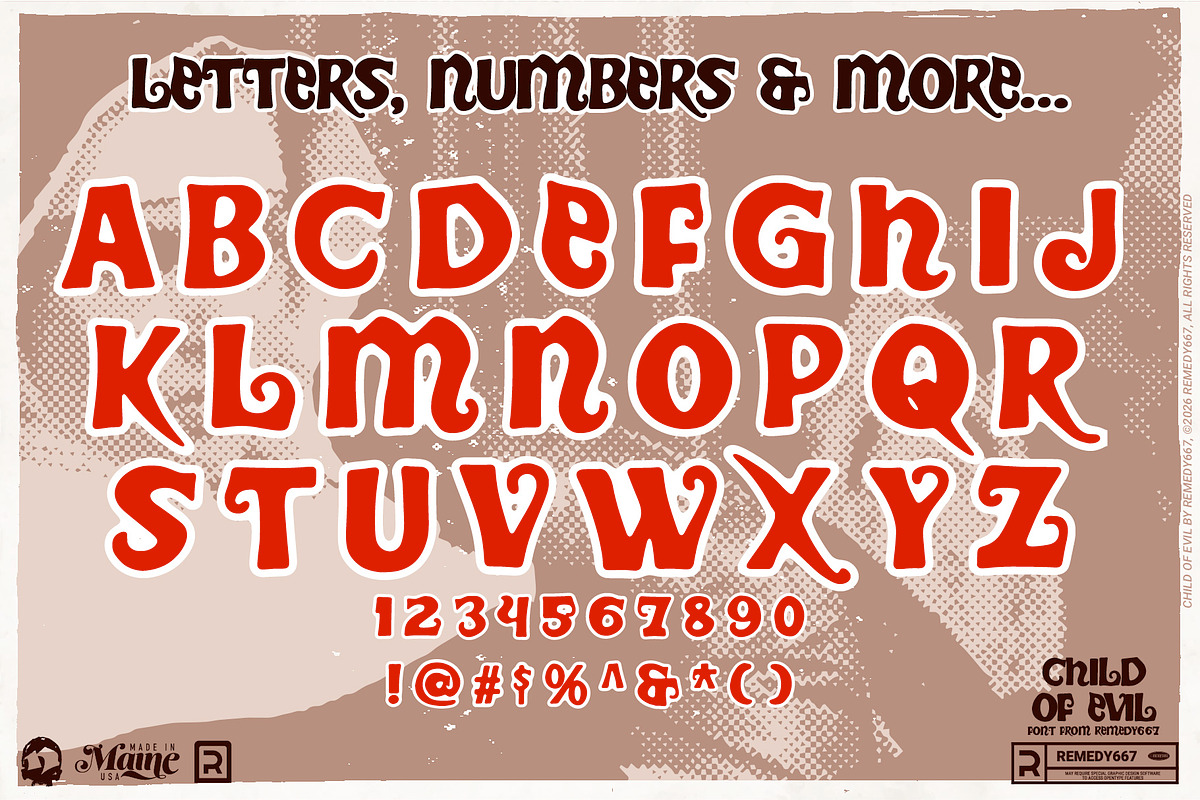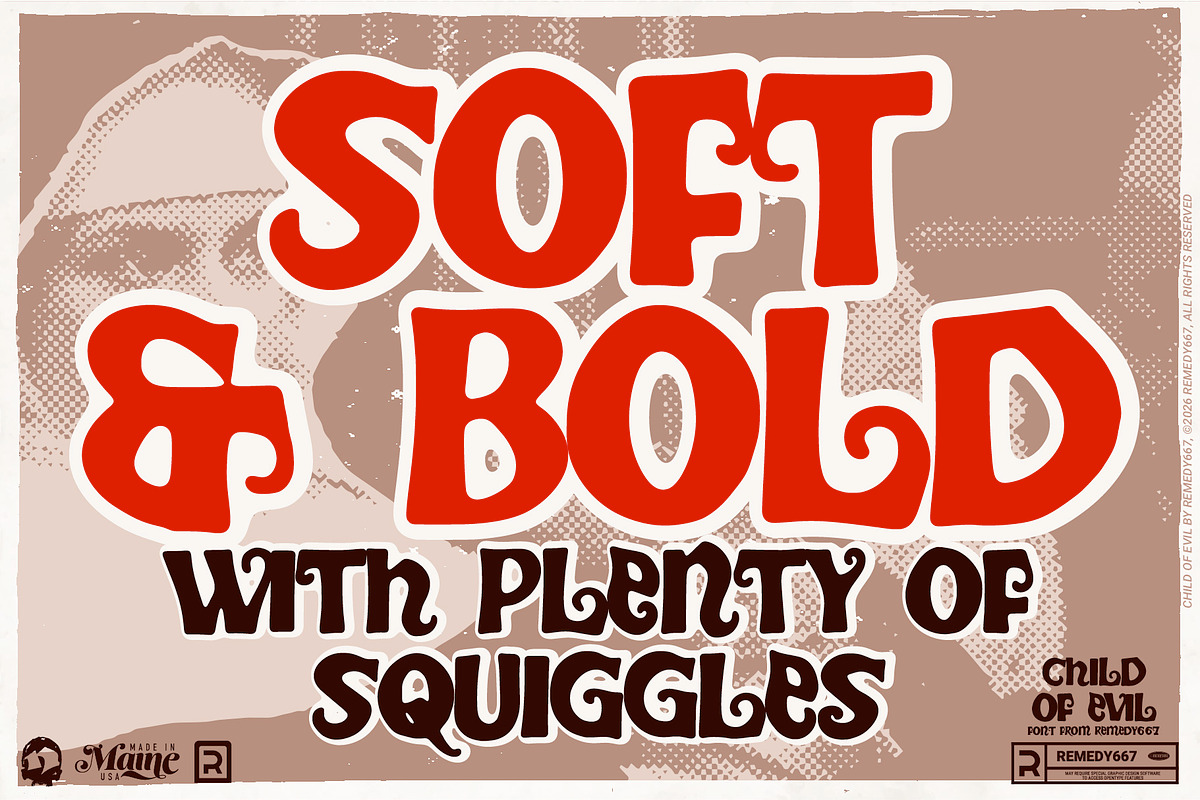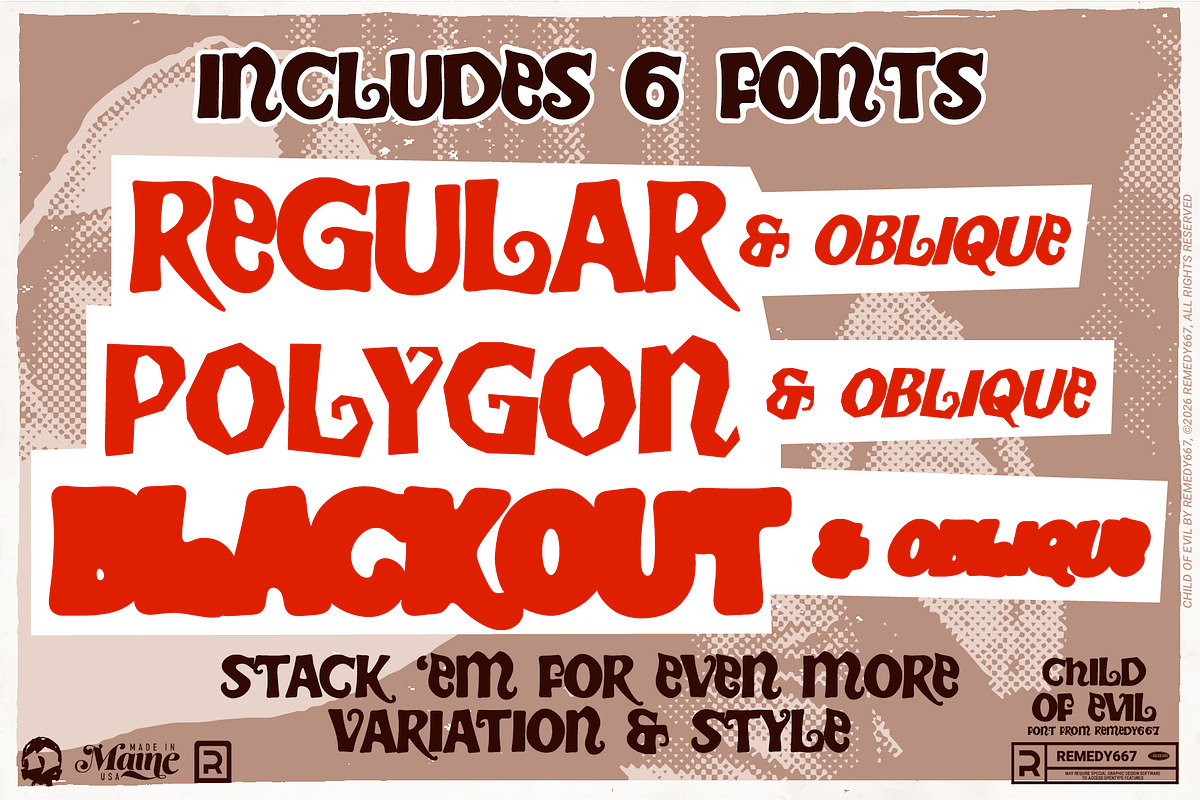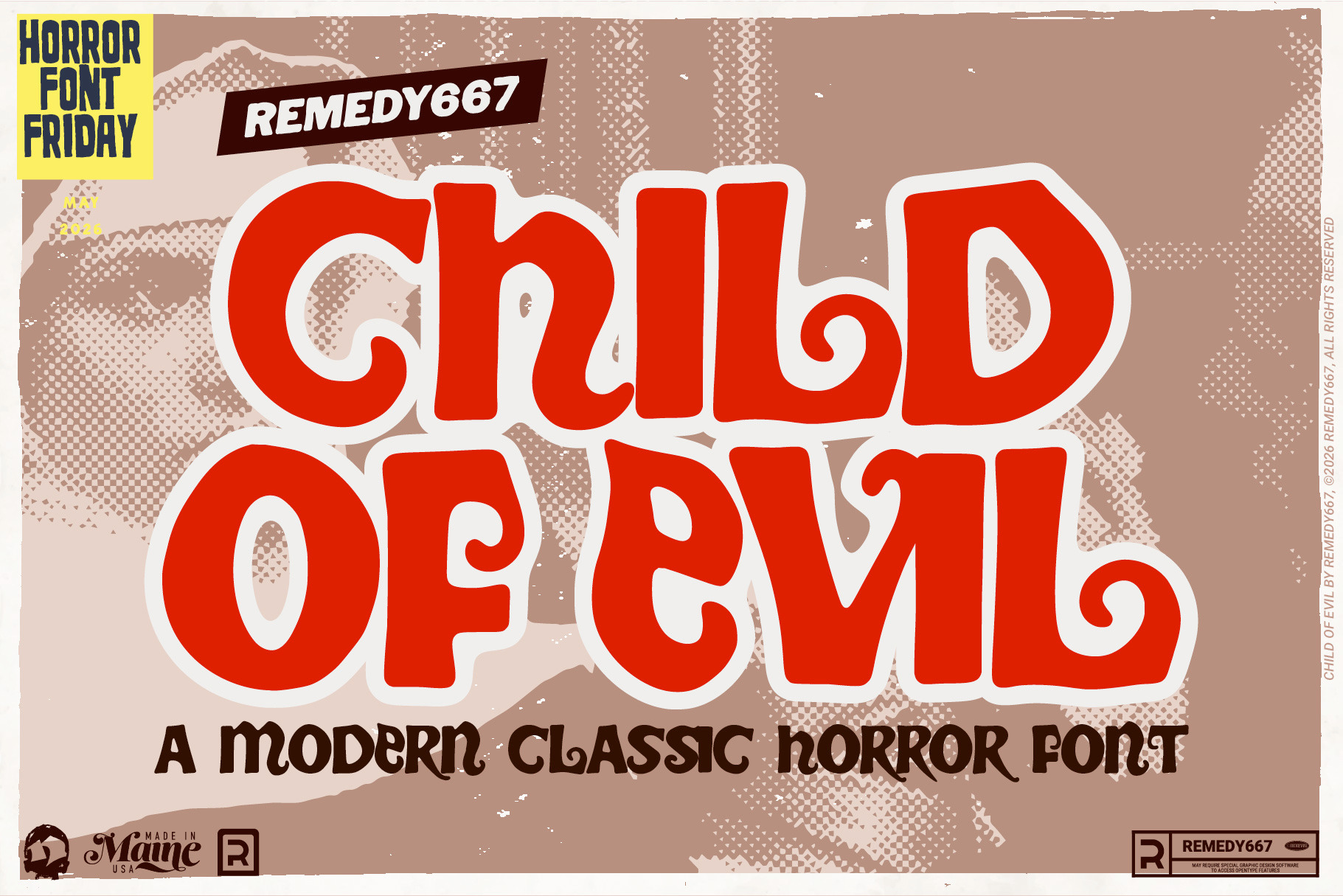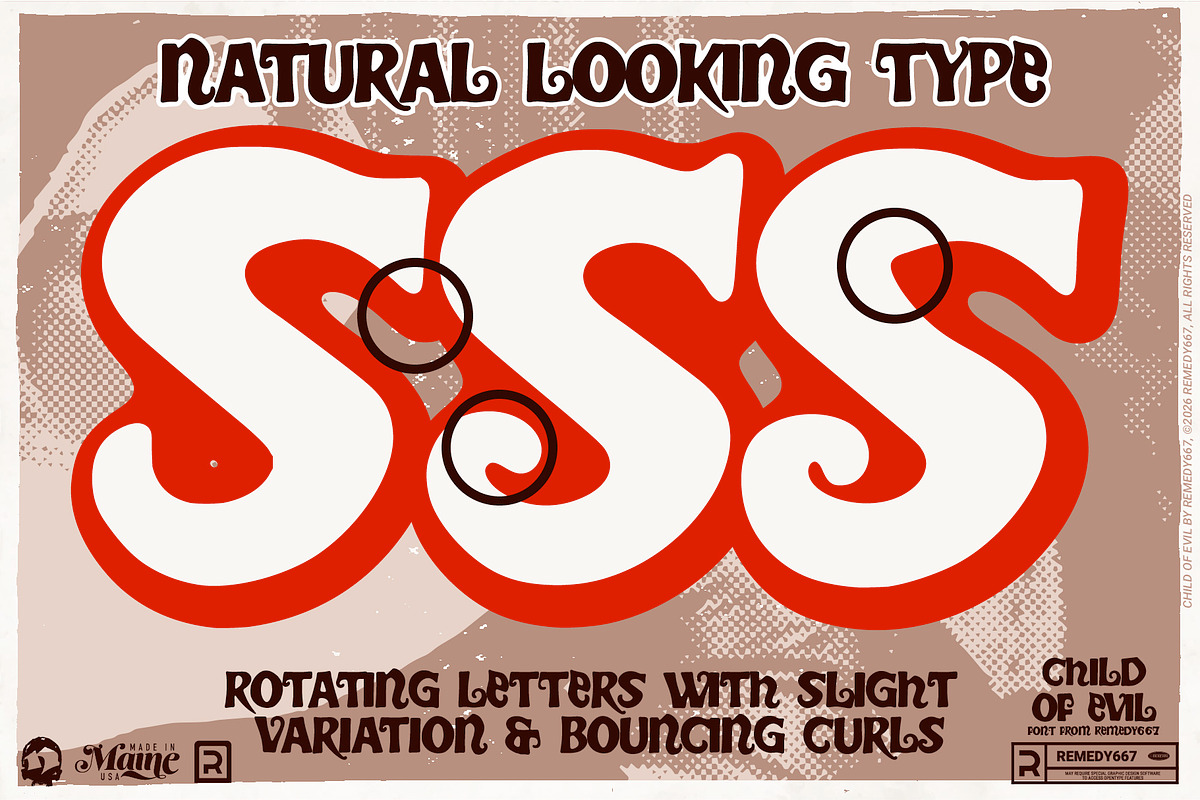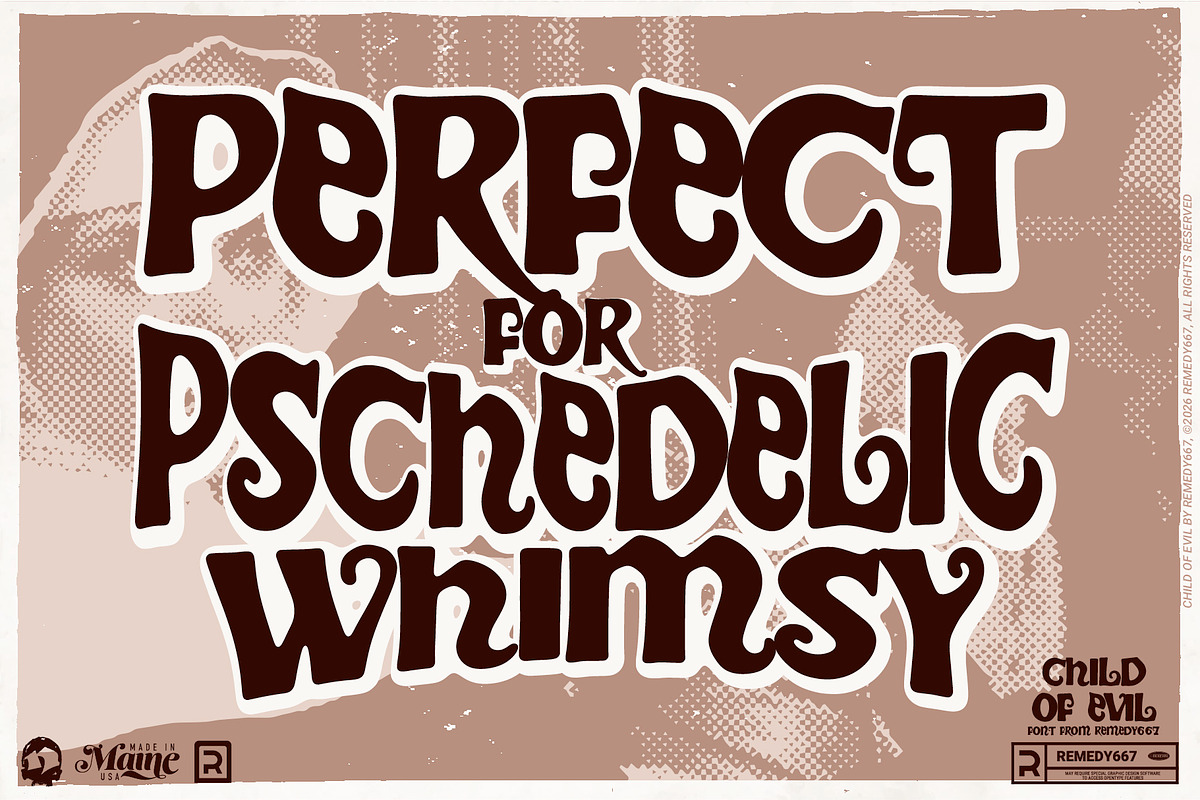
Child of Evil - Modern Horror Font
Sugar, spice… and something not quite right! Child of Evil may look sweet, but don’t be fooled. Child of Evil is a sinister typeface inspired by the dark allure of the lettering from To the Devil… a Daughter. Beneath its polished surface lurks an evil edge, blending classic horror roots with modern titling sensibilities.
Perfect for projects that walk the line between elegance and evil, Child of Evil delivers a refined yet unsettling tone. Subtle variations keep your text feeling alive… never stale, never safe. Conjuring some sleek horror branding or modern occult aesthetics? Child of Evil proves that even the prettiest things can hide something wicked.
Classic horror-inspired forms with a modern titling feel
Rotating characters for natural, organic text flow
Clean yet eerie style suited for a wide range of projects